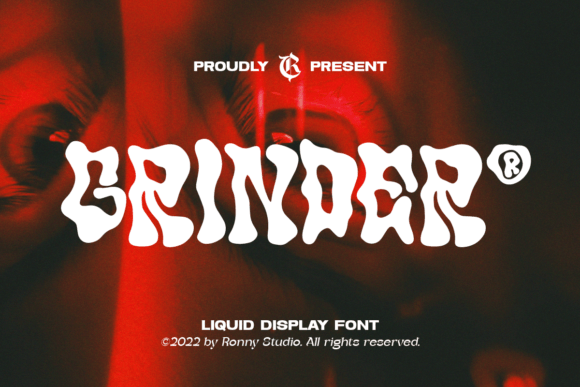
Introducing Grinder Font, the ultimate choice for designers seeking to infuse their projects with a captivating retro vibe. Created by the talented Ronny Studio, this bold and playful font is guaranteed to add a touch of psychedelic acid graphics contemporary to your designs.
Are you tired of the same old boring fonts that fail to make an impact? Look no further! Grinder Font is here to revolutionize your creative journey. With its retro charm and eye-catching appeal, this font is the perfect choice for posters, magazines, Instagram posts, online content, and branding endeavors.
Imagine the impact of a bold and vibrant font that effortlessly grabs attention and leaves a lasting impression. Grinder Font does exactly that! Its unique style and liquid text effect instantly draw the viewer's eye, ensuring that your message stands out amidst the noise.
Whether you're a seasoned designer or just starting your creative journey, Grinder Font is a must-have in your toolkit. Its versatility allows you to experiment with various design styles and themes, providing endless possibilities for your artistic expression.
With Grinder Font, you can effortlessly evoke emotions and set the mood for your projects. Its retro appeal exudes nostalgia and adds a touch of whimsy, making it perfect for projects that require a playful and fun atmosphere.
Don't settle for ordinary fonts that fail to make an impact. Elevate your designs to new heights with Grinder Font! Its captivating and attention-grabbing nature is sure to impress your audience and leave a lasting impression.